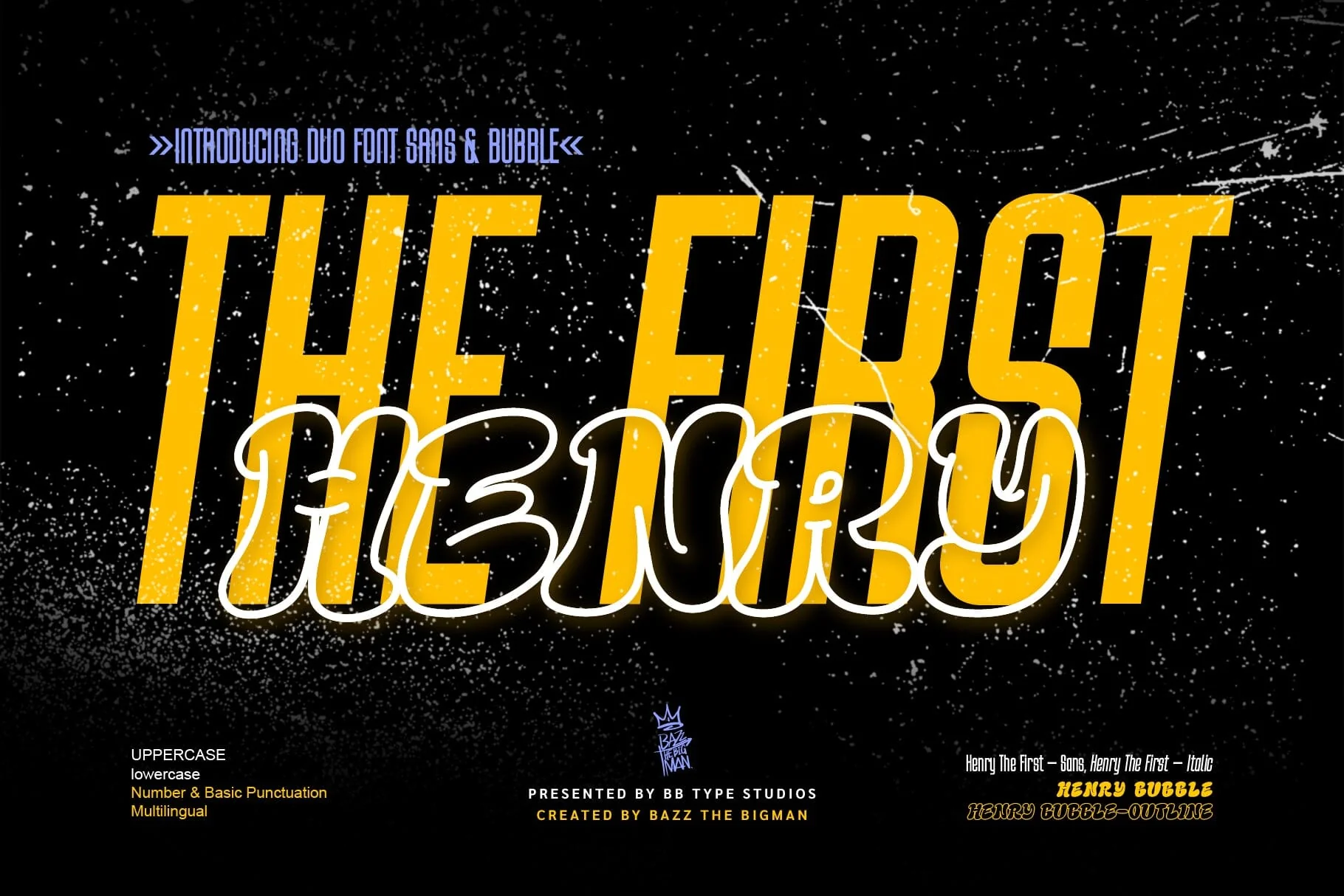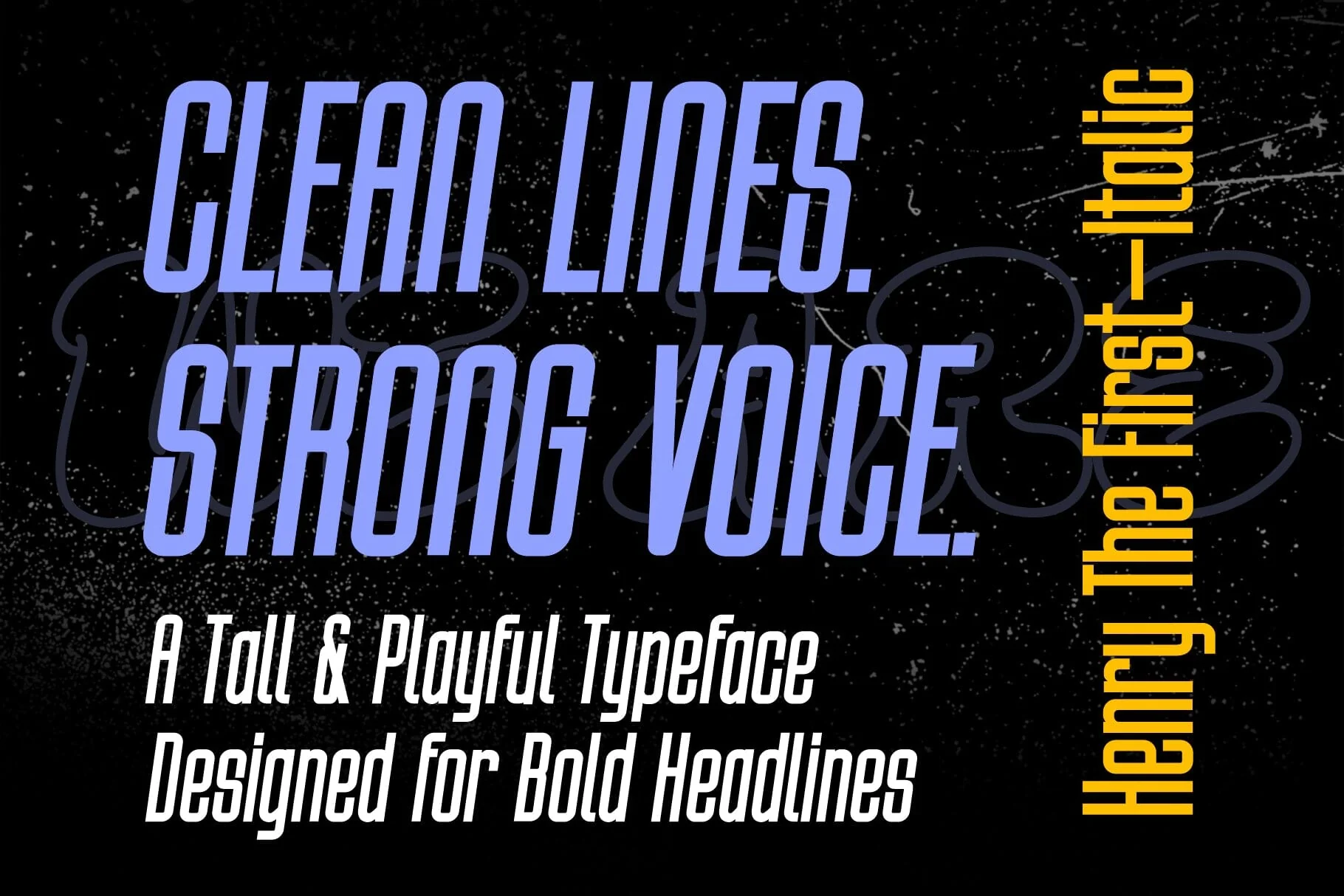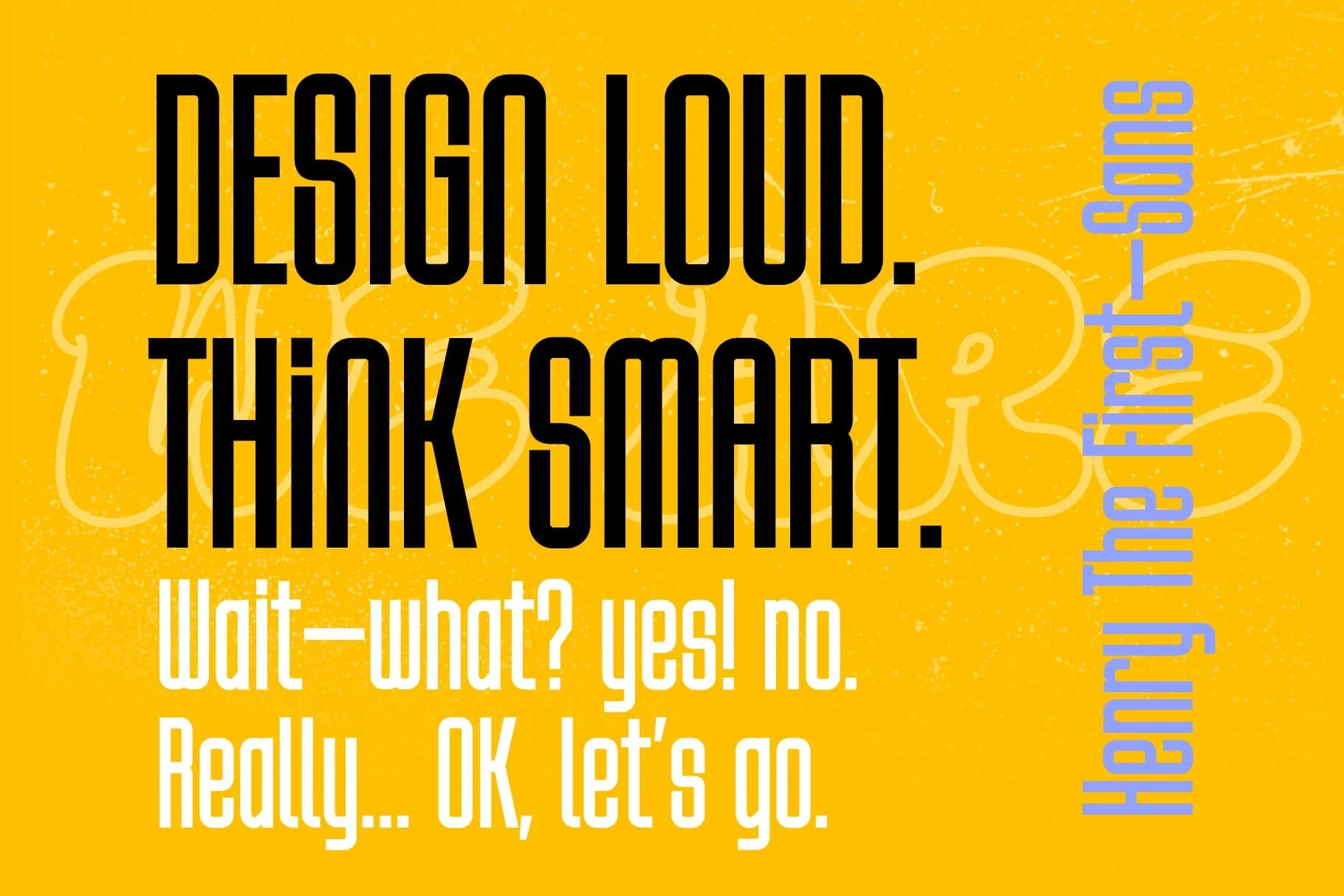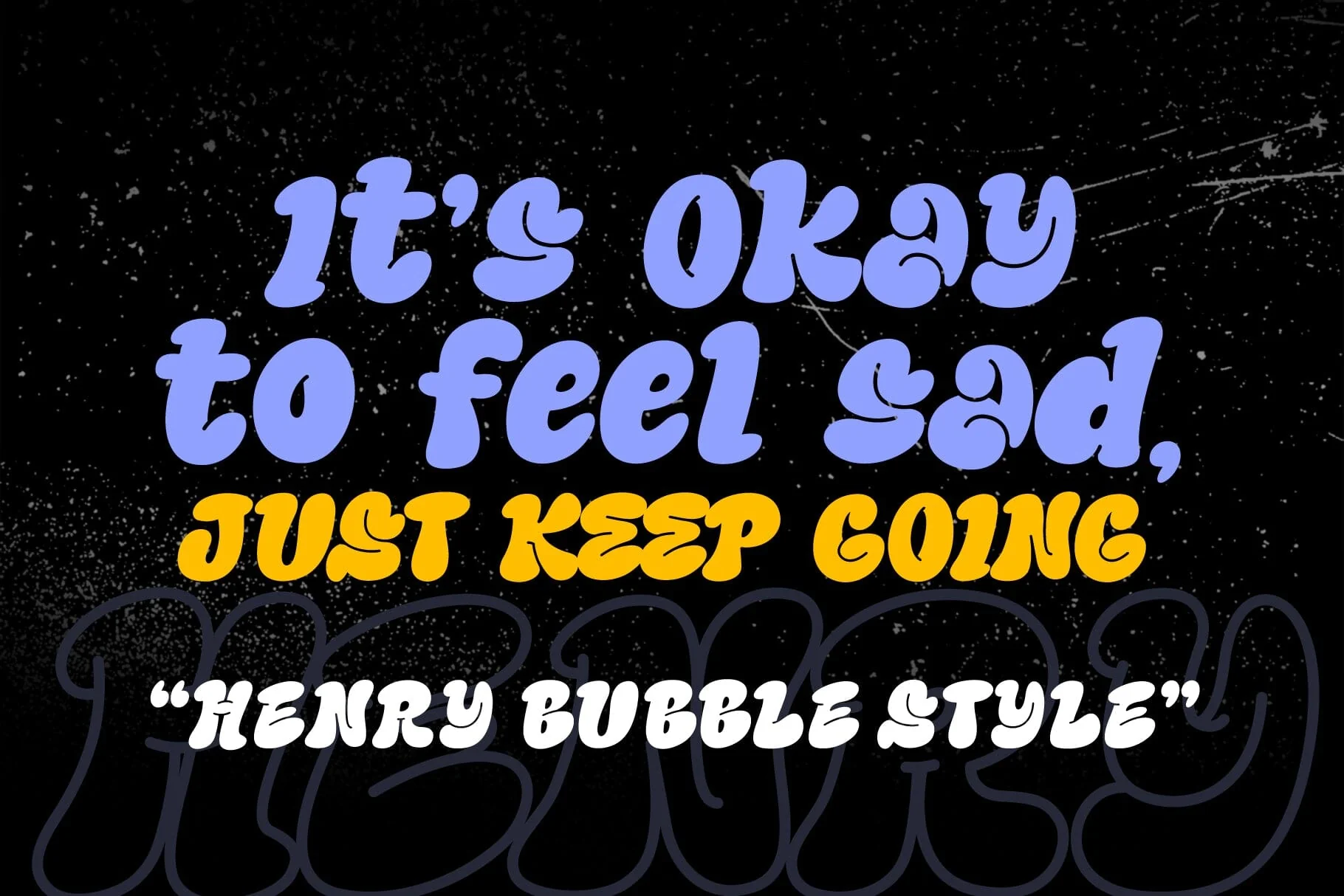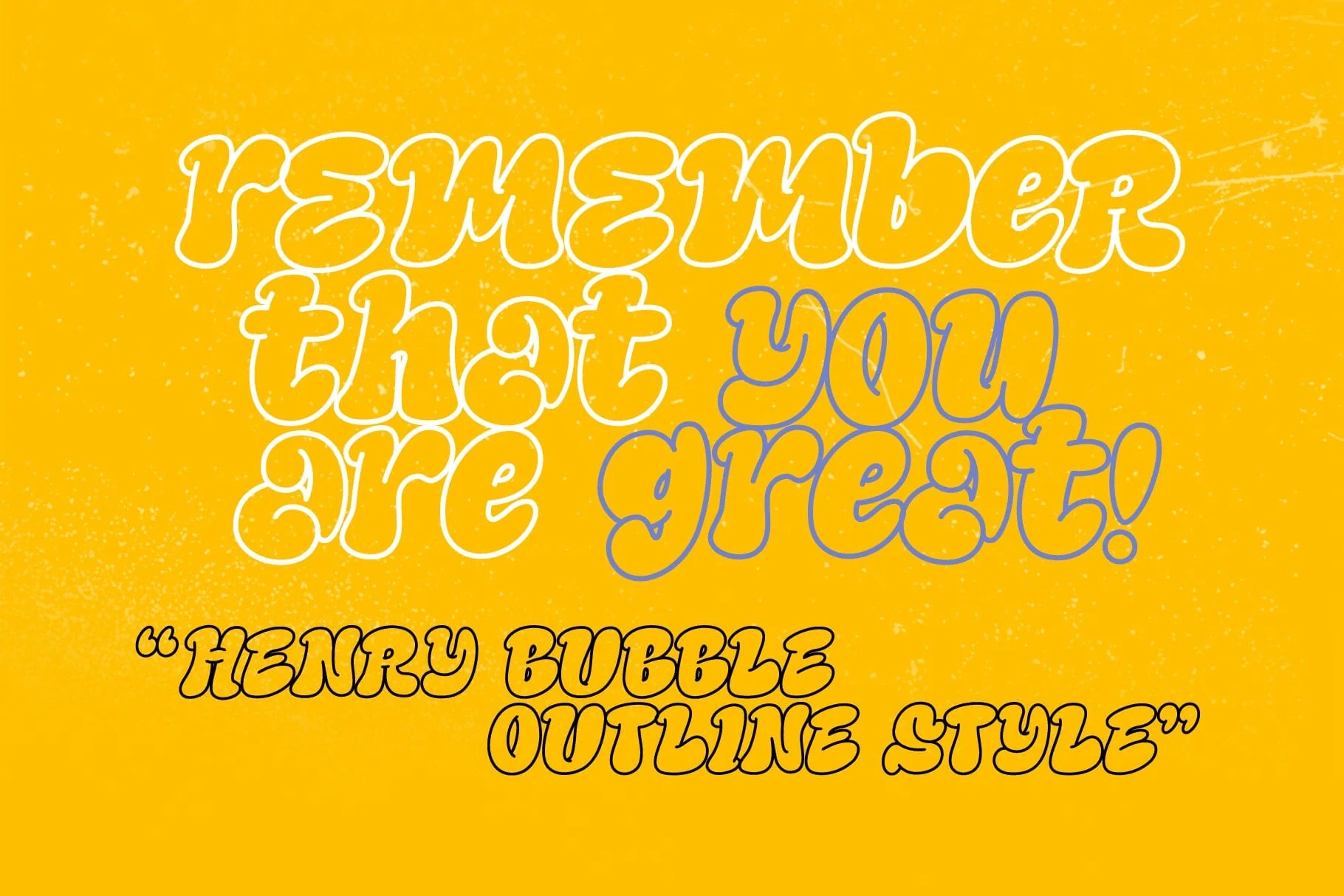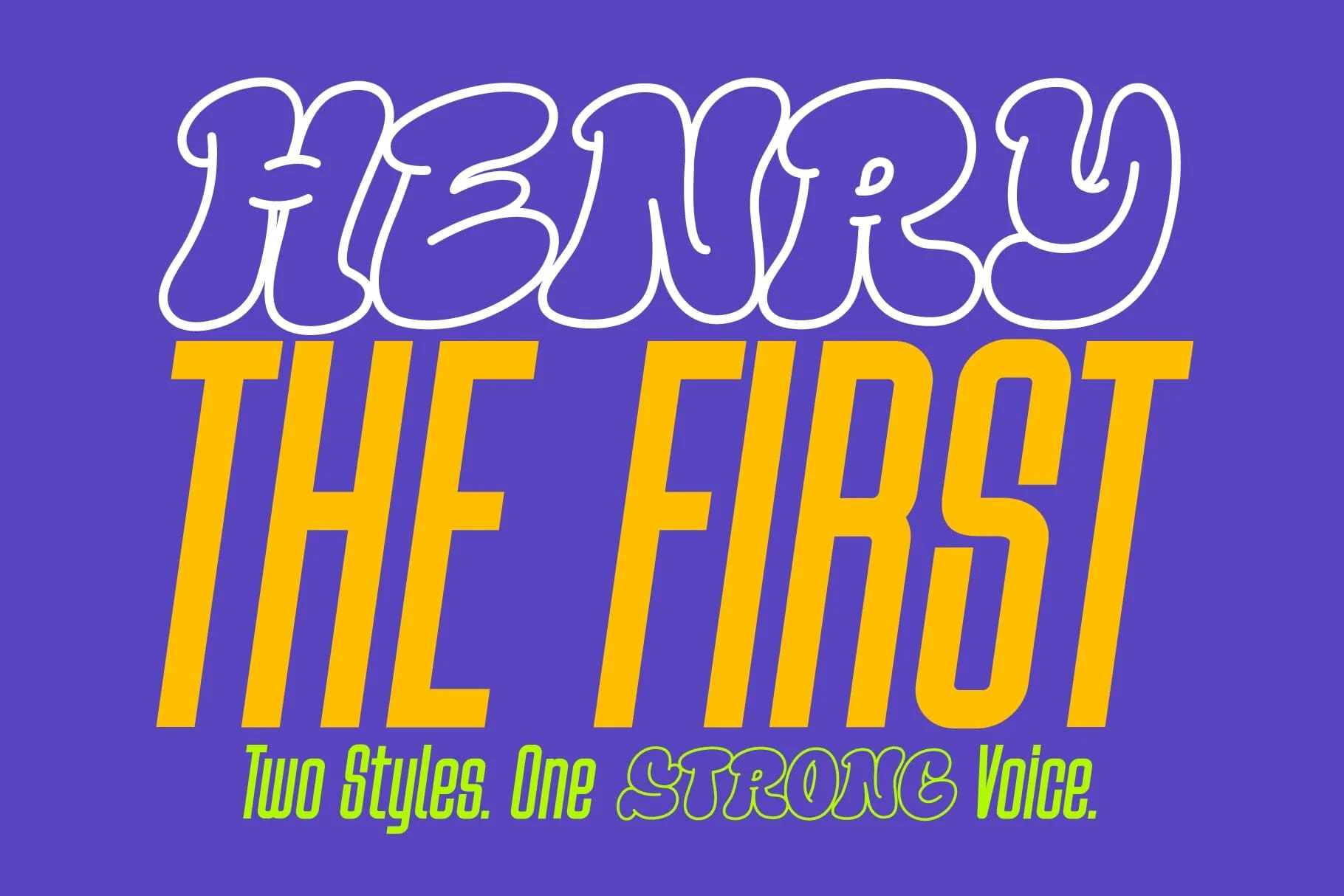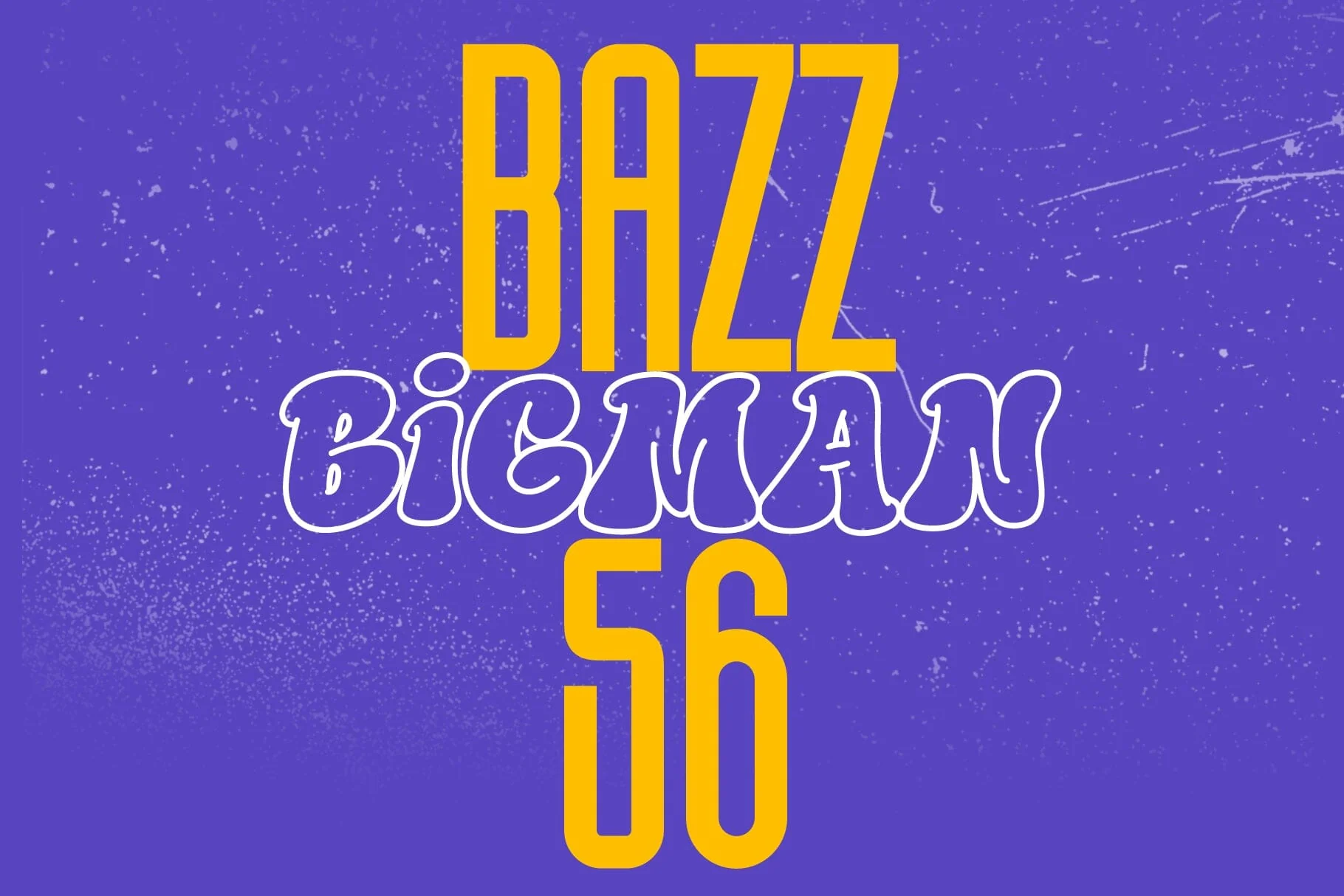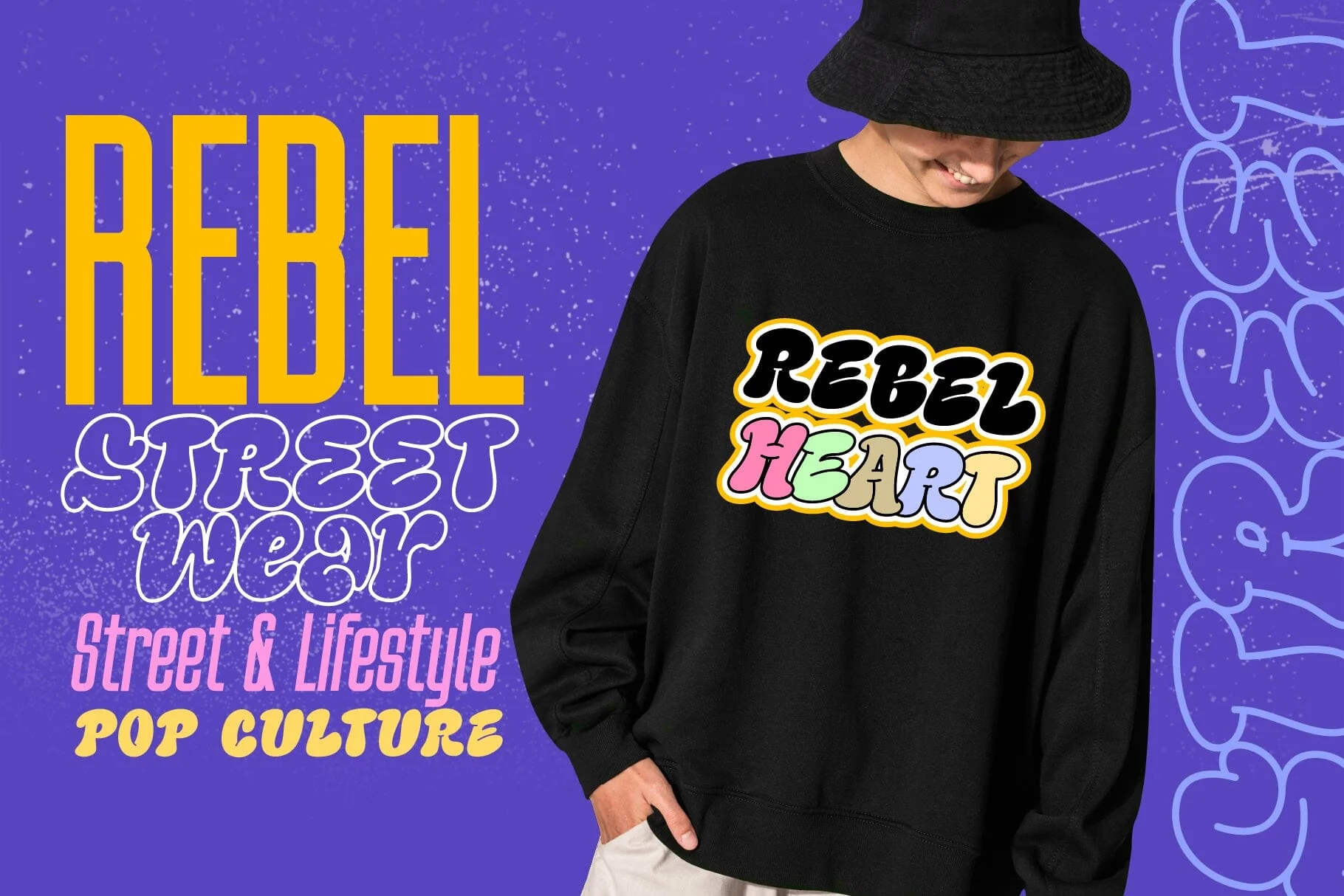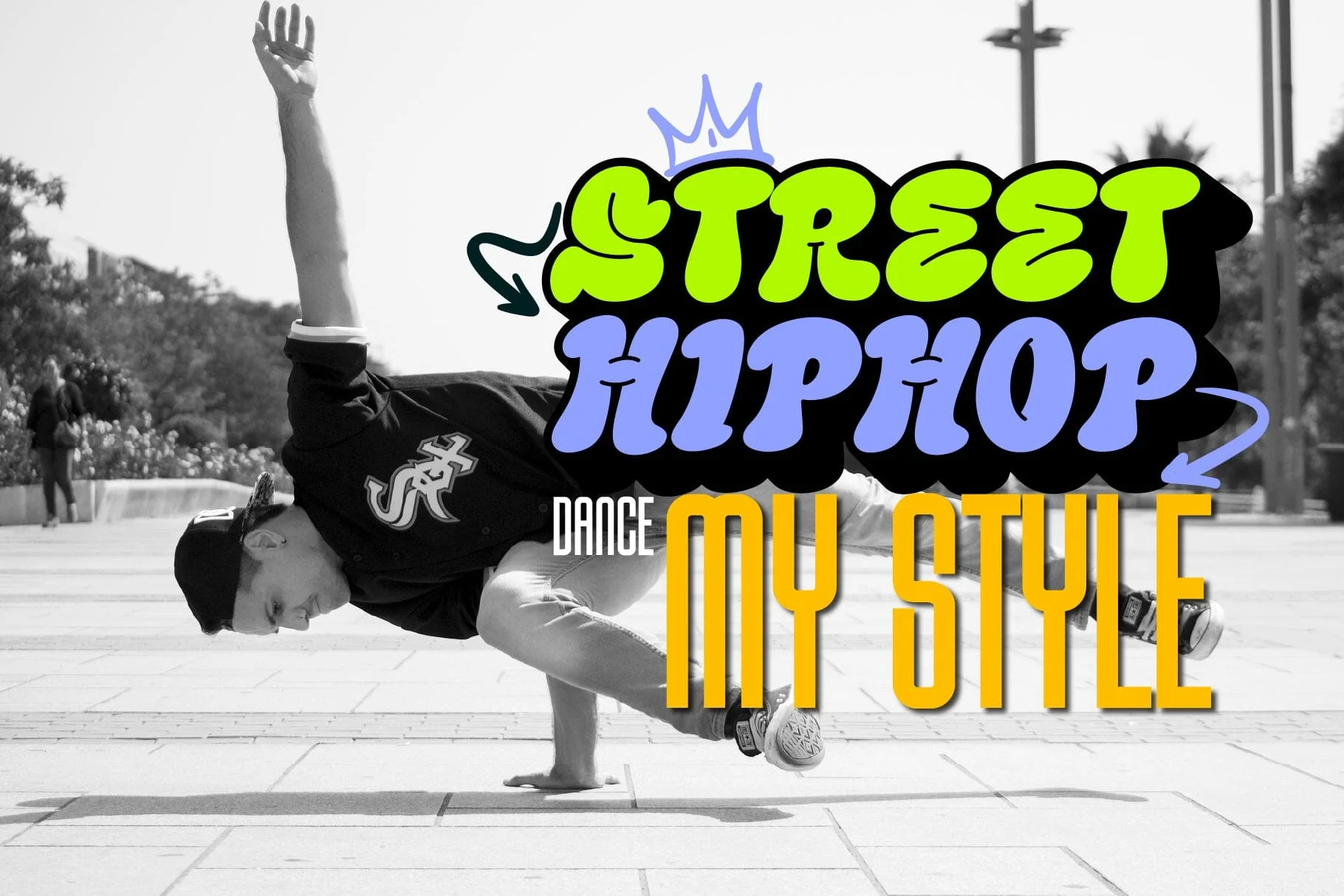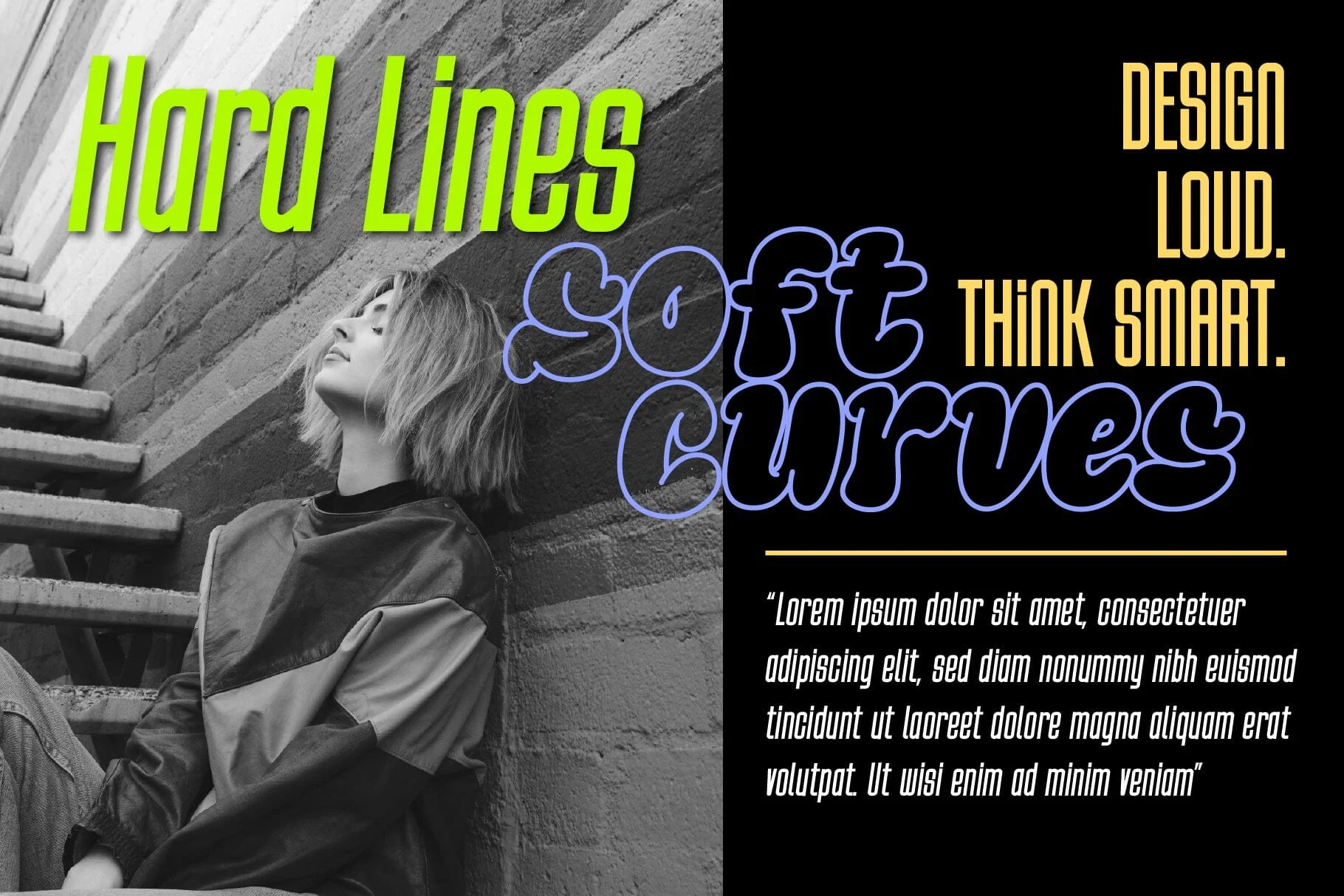
Henry the First Duo Font
Introducing Henry the First: a dual-style typeface replete with versatility, ready to bring your designs to life.
As a dynamic duo, it boasts of two contrasting styles. Firstly, there’s Henry The First – Sans, marked by its tallness, condensation, and clean finish. This style serves up an ideal solution for crafting riveting headlines, poster designs, editorial layouts, and capturing brand essence.
On the other side, we have Henry Bubble – a representation of the softer and more rounded aspect of design. Its playful nature makes it well-suited for streetwear, pop culture ensembles, quirky quotes, and vivacious typography.
The beauty of the Henry the First font family is its innate ability to either blend flawlessly or hold its own with sheer strength. Be it audacious headlines, chic fashion graphics, enticing album covers, or engaging social media content, Henry the First steps up to the task, injecting your designs with a stride of modernity and confidence.